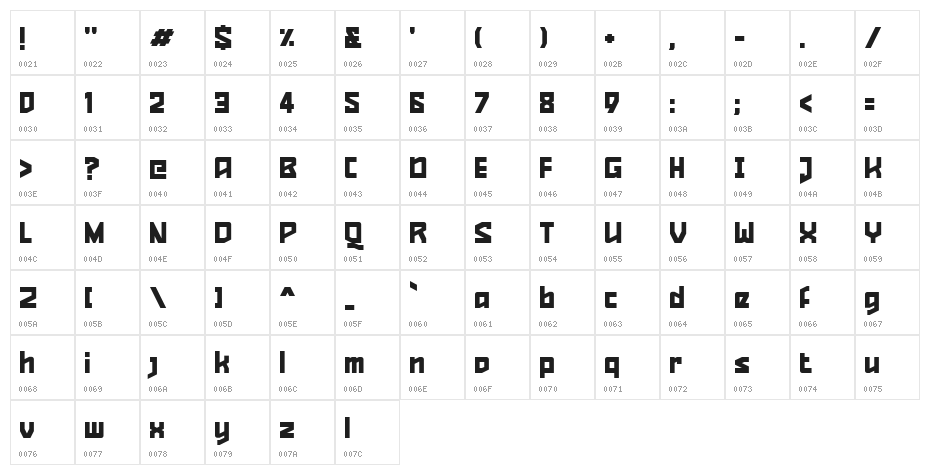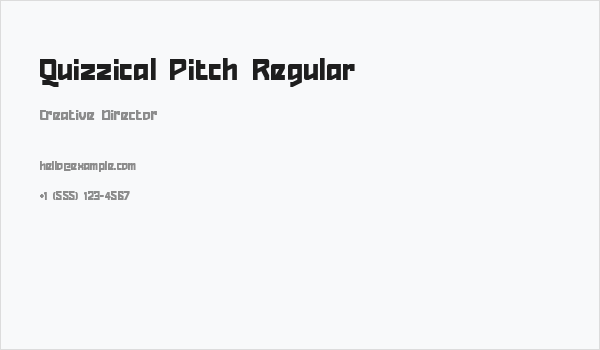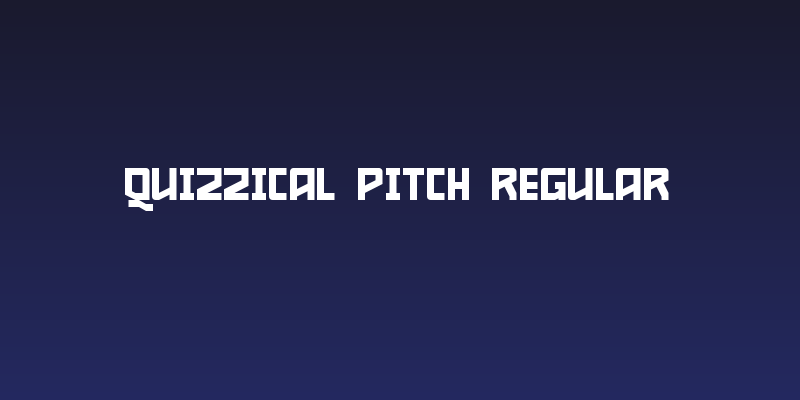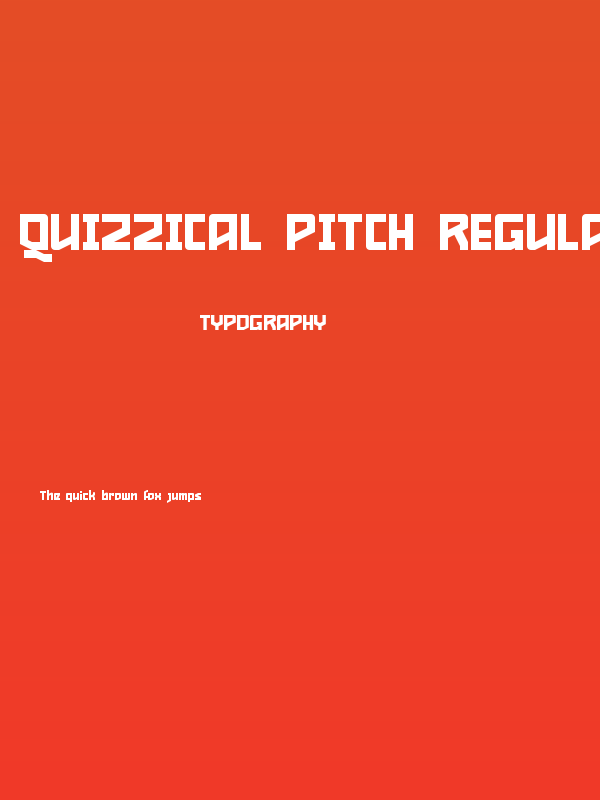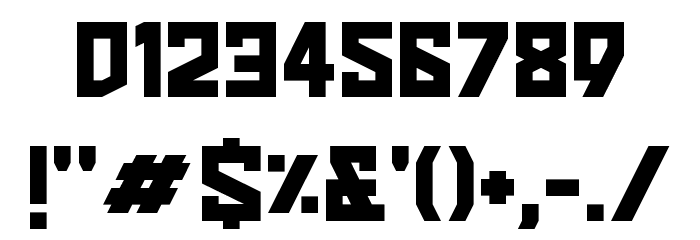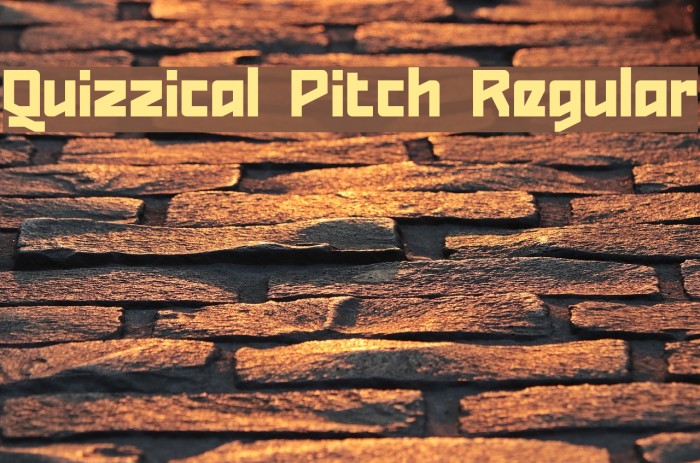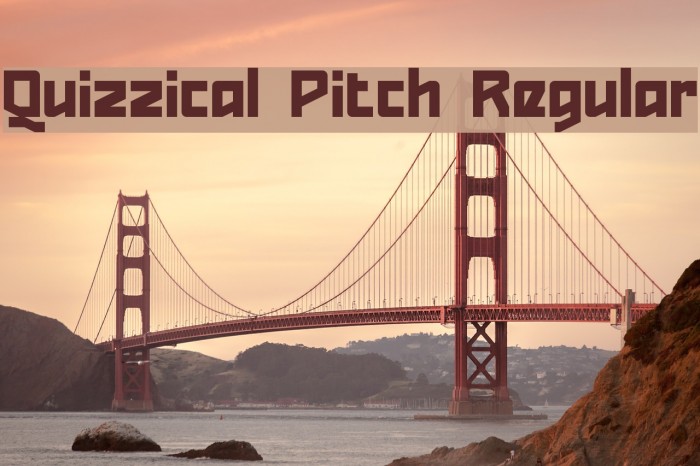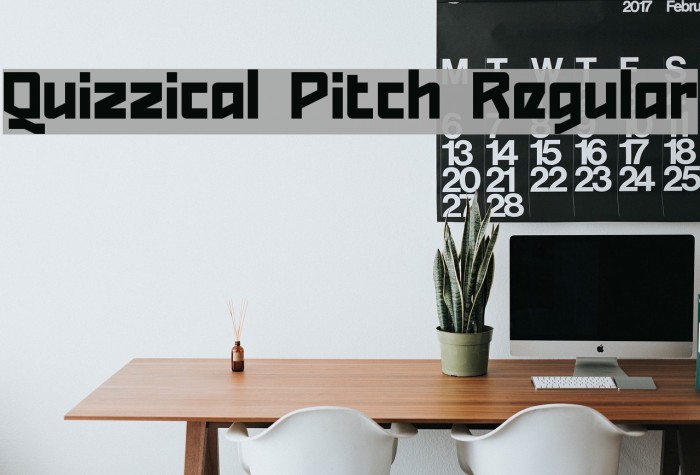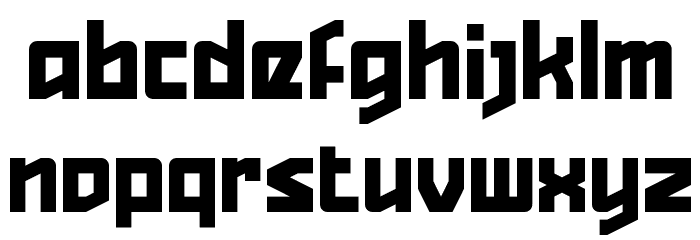
Quizzical Pitch Regular Font
Quizzical Pitch Regular Description
This font features a bold, geometric design with sharp angles and a futuristic aesthetic. The uppercase letters are blocky and robust, while the lowercase letters maintain a consistent style with slightly softer edges. Numbers and special characters follow the same angular theme, making the font cohesive and visually striking. The overall appearance is modern and edgy, suitable for projects that require a strong visual impact. The uniform stroke width and lack of contrast give it a solid and stable look, ideal for attention-grabbing headlines or logos.
| Proposed Projects | Ideal for branding, posters, video game titles, and any project needing a modern, bold statement. |